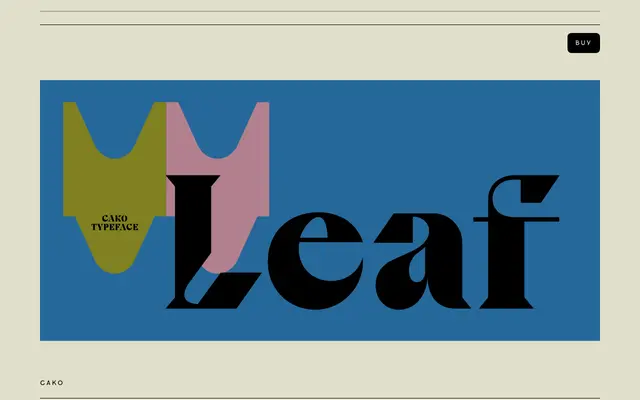
Cako
VJ Type · Jérémy Schneider · 2019
A high-contrast display serif by Jérémy Schneider with graphic letterforms, spiky terminals and a generous set of stylistic alternates across three weights.
Designed by Jérémy Schneider and released in 2019, Cako spans Thin, Regular and Black with matching italics, each weight offering a different degree of typographic impact. The Black is defined by pronounced thick-thin contrast and fine spiky terminals, while the alternates, ligatures and round or diamond dot variants introduce considerable rhythmic variety. Latin Extended language support covers over forty European languages.
Cako is a display serif with high stroke contrast, spiky terminals and graphic letterforms designed primarily for large sizes; its three contrasted weights and stylistic alternates reinforce its display orientation.